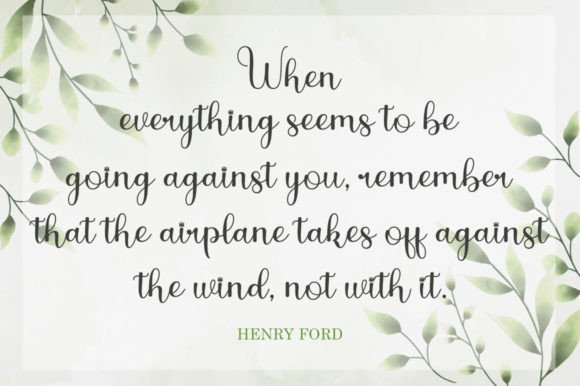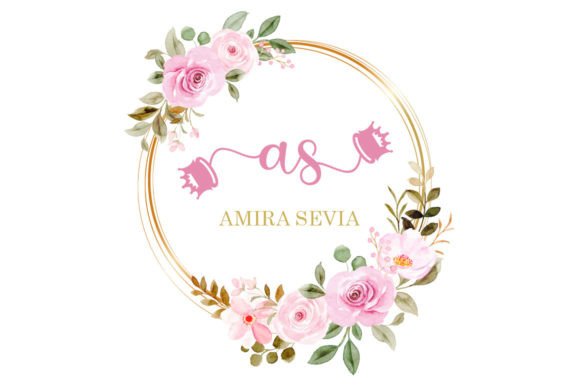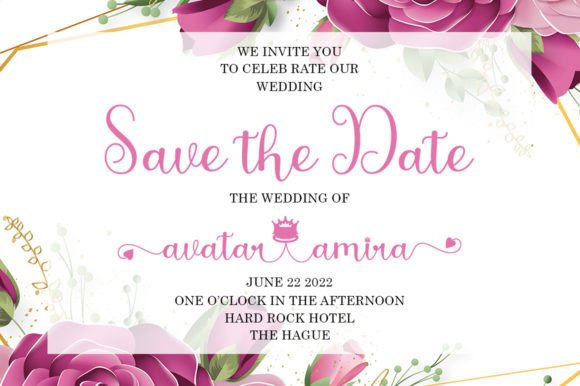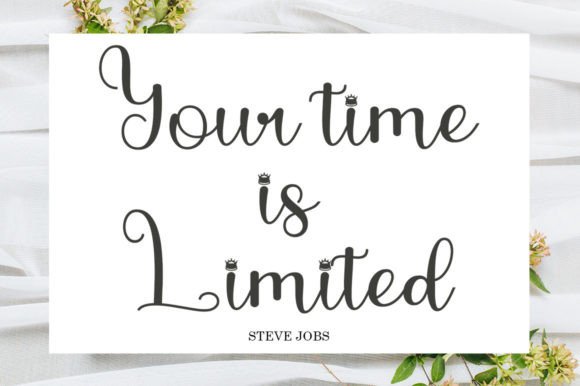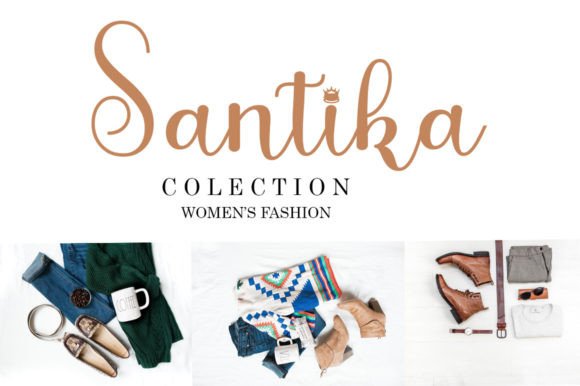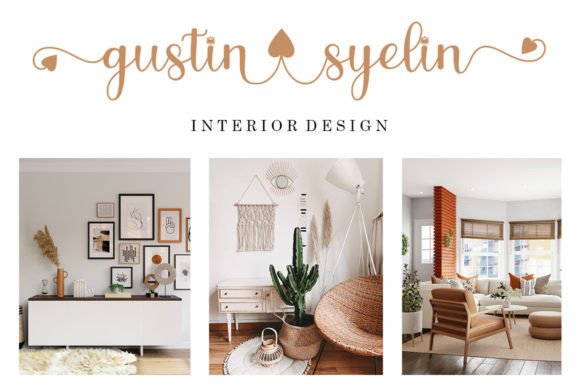
Introduction to Sinta Santi Font
Remember the moment when you stumbled upon the perfect font for your creative project? The one that brought your design to life and made it truly special? That’s exactly what we’re excited to share with you today – the Sinta Santi Font, a stunning handwritten font that’s sure to elevate your designs to the next level.
With its elegant touch and timeless style, Sinta Santi Font is the perfect design resource for any creative project. Whether you’re working on a logo, a brochure, or a social media graphic, this high-quality font is sure to impress. And the best part? It’s available for free download, so you can start using it in your designs right away.
Key Features of Sinta Santi Font
Honest Review: Sinta Santi Font
I recently had the chance to work with the Sinta Santi Font, and I must say it’s a great addition to any designer’s toolkit. This high-quality design resource is perfect for creative projects where you need a unique and elegant touch.
- ✨ The design is sleek and sophisticated, suitable for a wide range of creative projects.
- ⚠️ The font may not be suitable for projects where you need a bold or playful font style.
- ⚠️ The font’s elegance may make it appear too formal for some projects.
Overall, I’m impressed with the Sinta Santi Font. It’s a versatile and high-quality design resource that can add a touch of sophistication to any creative project. While it may have some limitations, it’s definitely worth considering for your next design project.
Alternatives to Sinta Santi Font
Great Vibes Font is a high-quality, handwritten font that’s perfect for creative projects requiring a touch of elegance. It’s available for free download and offers a transparent background, making it ideal for graphic designers and digital artists. When to use: Great Vibes Font is suitable for wedding invitations, quotes, and other decorative text elements. Compared to Sinta Santi Font, Great Vibes Font has a more refined and sophisticated feel, making it a great alternative for designers looking to add a touch of sophistication to their designs.
Alex Brush Font is a beautiful, handwritten font that’s perfect for designers looking to add a touch of whimsy to their creative projects. It’s available for free download and offers a transparent background, making it ideal for graphic designers and digital artists. When to use: Alex Brush Font is suitable for decorative text elements, quotes, and other creative projects that require a touch of personality. Compared to Sinta Santi Font, Alex Brush Font has a more playful and expressive feel, making it a great alternative for designers looking to add a touch of personality to their designs.